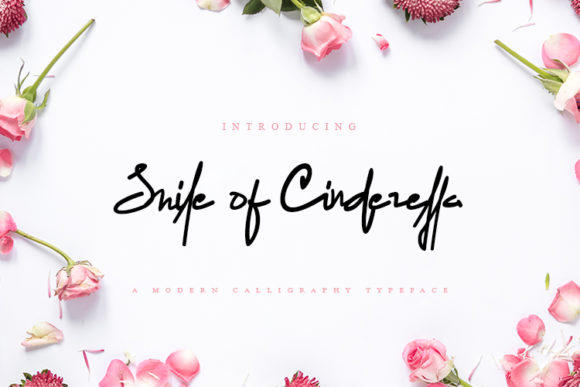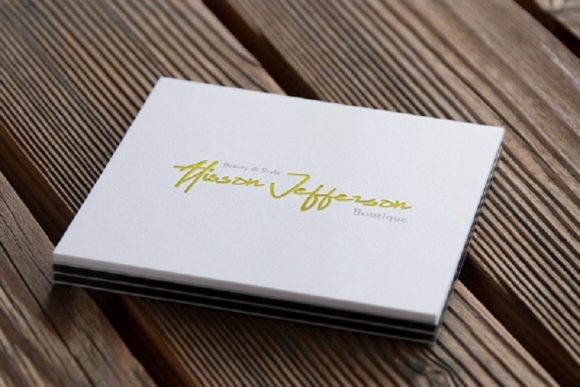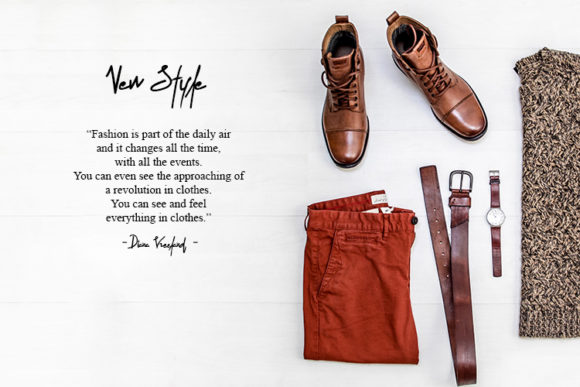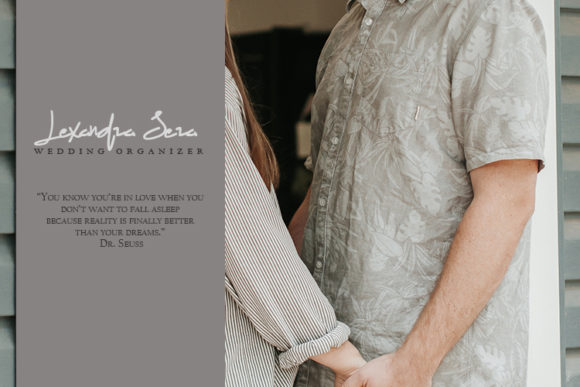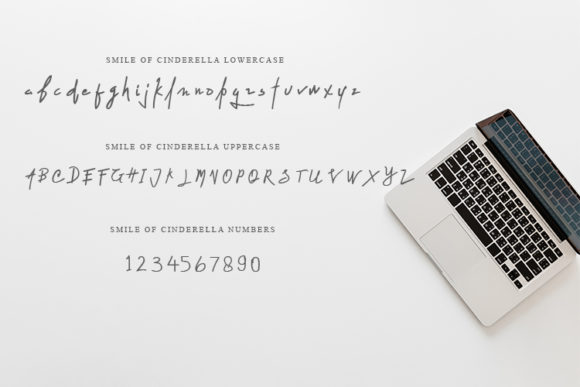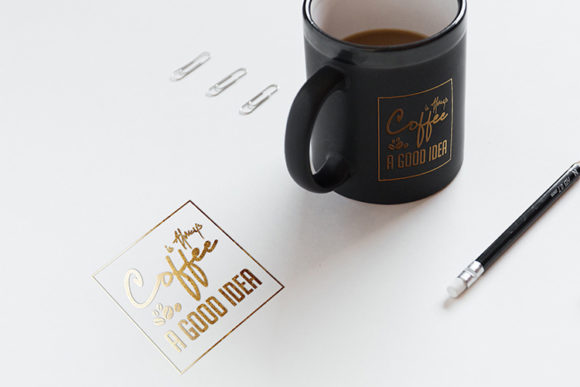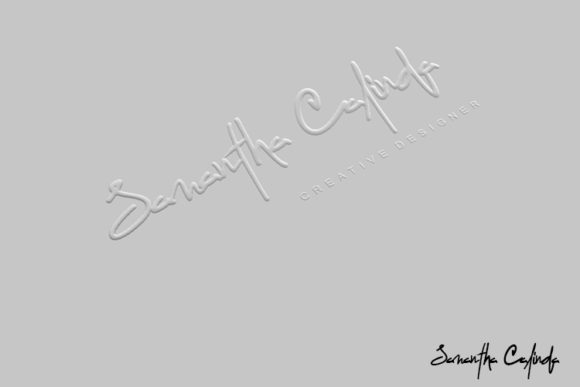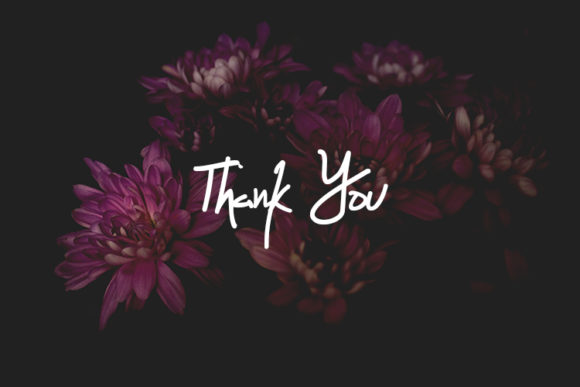
Smile of Cinderella Font
About Smile of Cinderella Font
The Smile of Cinderella is a beautiful script font. It has an elegant, yet modern style and will add a personal touch to your designs.